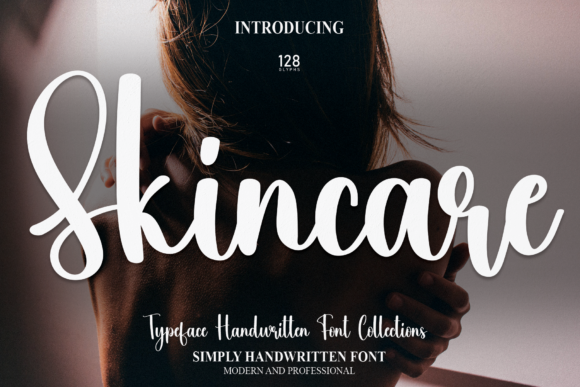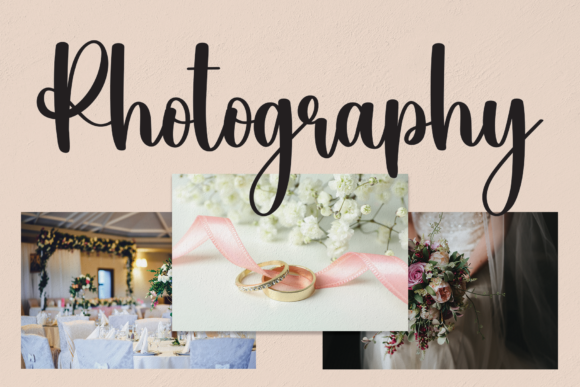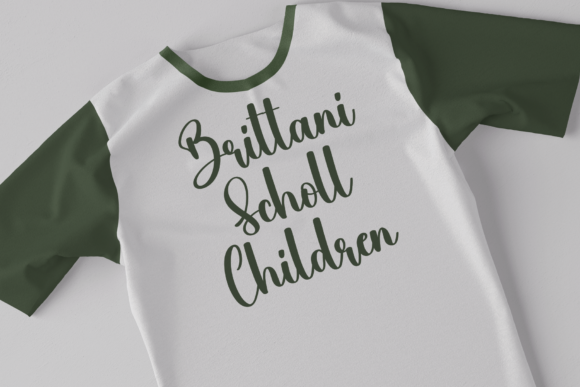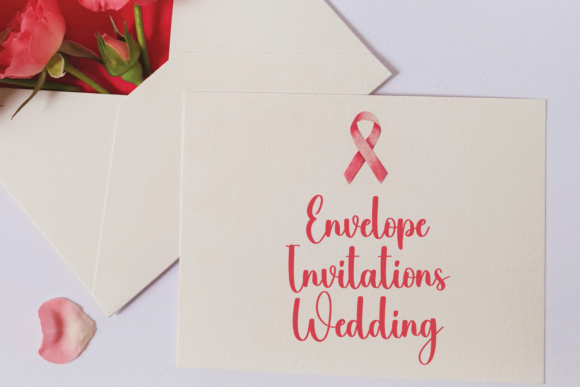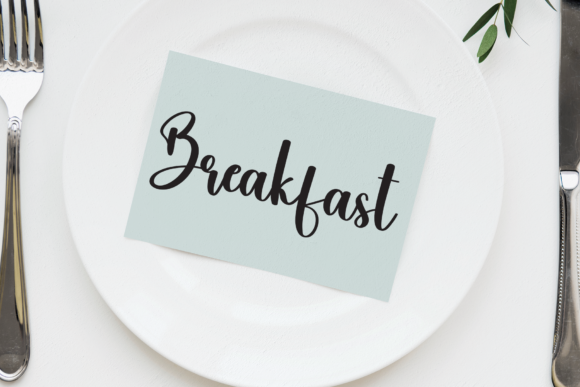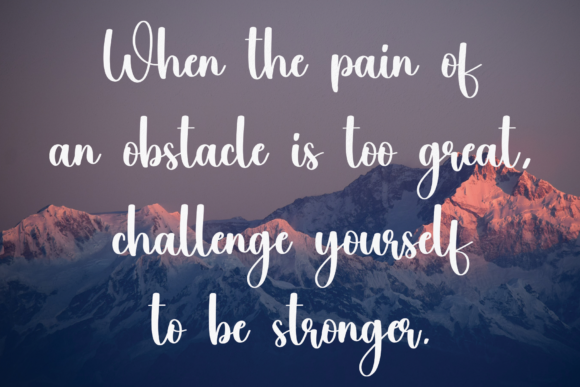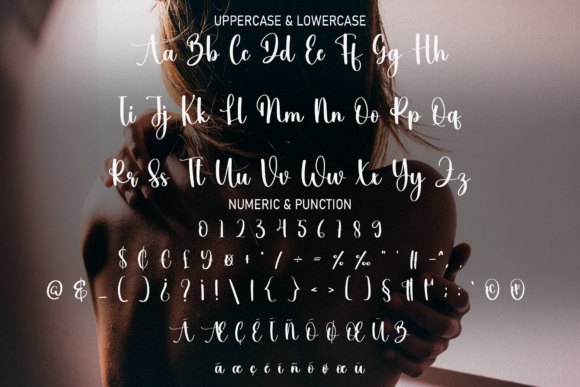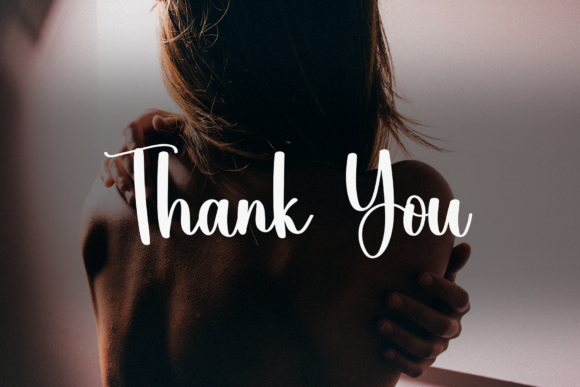
Skincare Font
“Skincare” is a font that epitomizes contemporary trends and exudes a sense of elegance and sophistication. With its chic and stylish script design, it seamlessly integrates into a wide range of branding projects, creating a distinct and memorable visual identity.
This font’s versatile nature makes it an ideal choice for diverse applications, including logos, t-shirt printing, and other creative endeavors. Its trendy appearance adds a modern flair to your designs, making them resonate with audiences seeking up-to-date aesthetics.
When utilized in branding, “Skincare” has the power to communicate a sense of luxury and refinement. Its flowing script conveys a touch of exclusivity, making it particularly fitting for skincare-related products or beauty brands. The font effortlessly captures attention, positioning your brand as a leader in the industry.
For t-shirt designs, “Skincare” adds an element of artistry and sophistication. Its chic strokes and balanced characters create a visual impact that resonates with those seeking stylish and trendy apparel. Whether it’s a catchy slogan or a brand statement, this font elevates your t-shirt designs to new heights.
Creativity knows no bounds with “Skincare.” Its ability to adapt to a variety of contexts ensures it excels across different projects, from labels to packaging and more. The font becomes an integral part of your design toolkit, providing the means to create striking visuals that align with modern sensibilities.
Overall, “Skincare” stands as a testament to its ability to convey elegance, trendiness, and versatility. It’s a font that harmonizes with contemporary design aesthetics, making it a compelling choice for those aiming to make a memorable impact through their branding and creative projects.